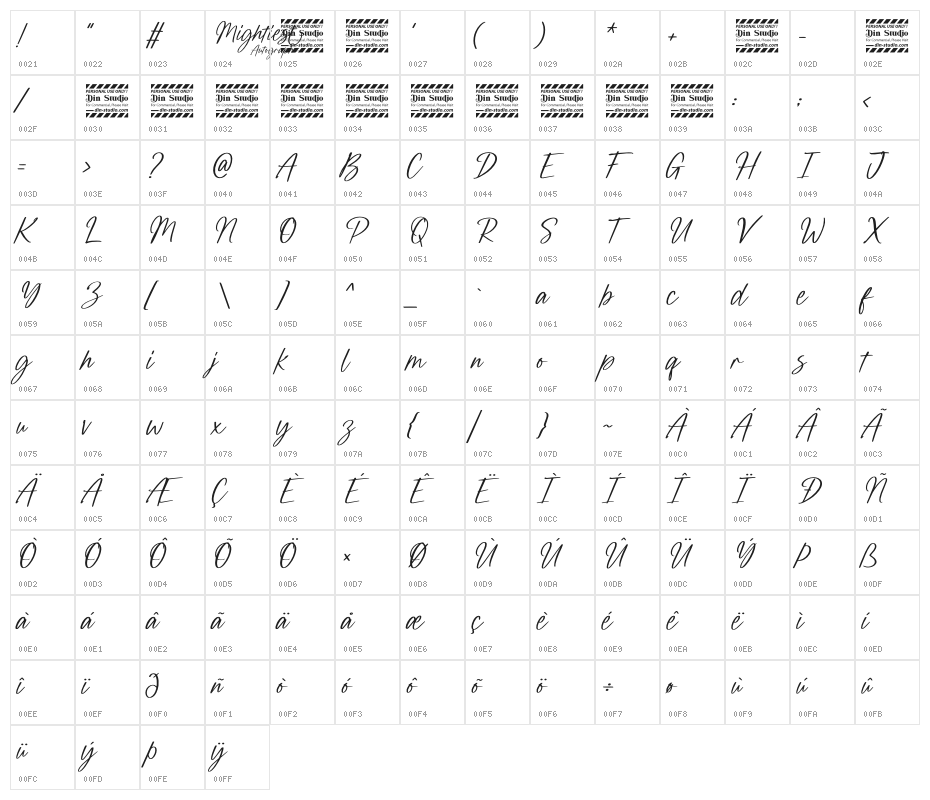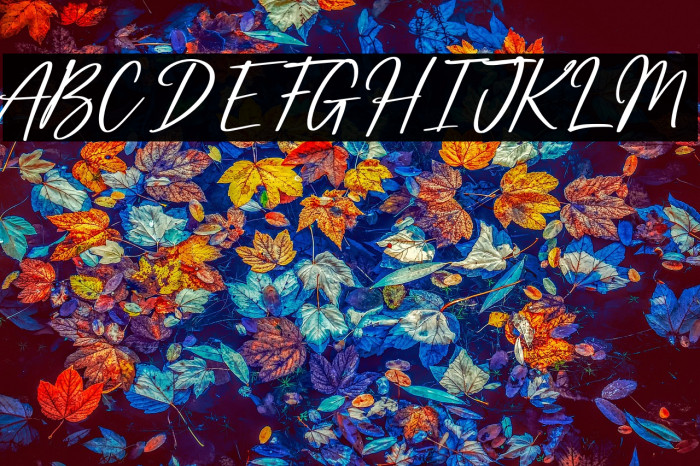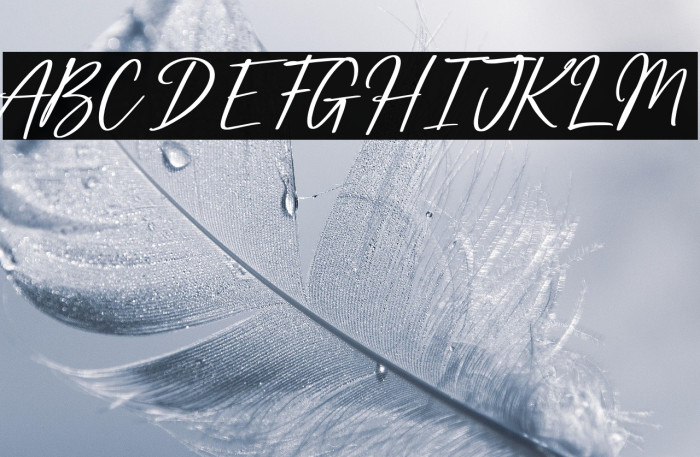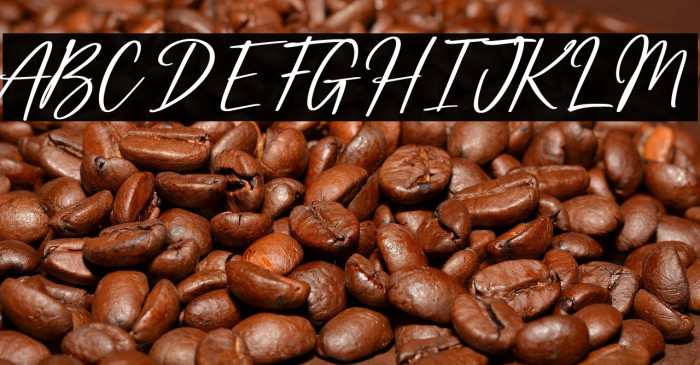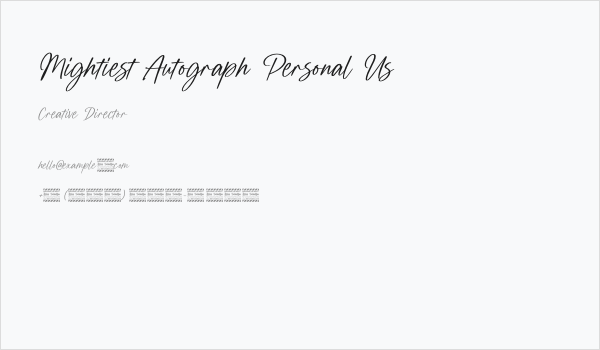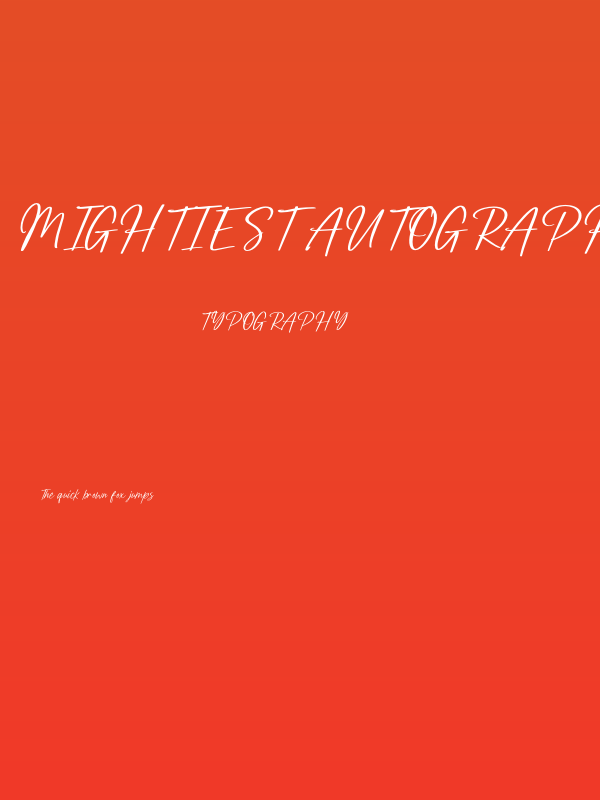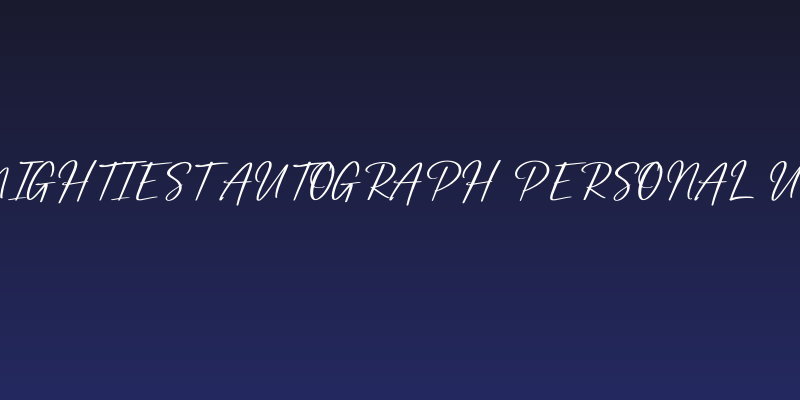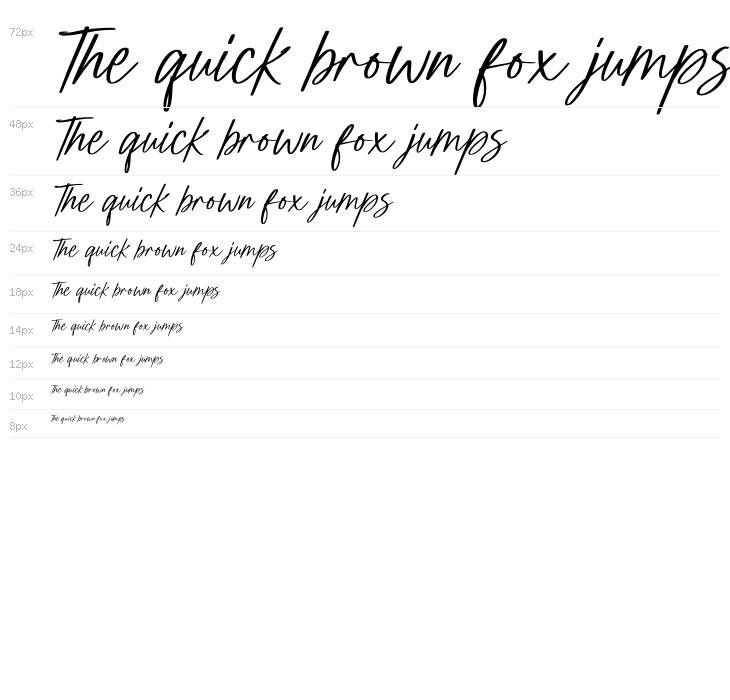
Mightiest Autograph Personal Us Font
Mightiest Autograph Personal Us Description
A flowing, cursive script font with a handwritten style, featuring smooth, connected letters and a casual elegance.
| Use Case | Logos, Invitations, Signatures |
| Proposed Projects | Invitations, personal branding, signatures. |